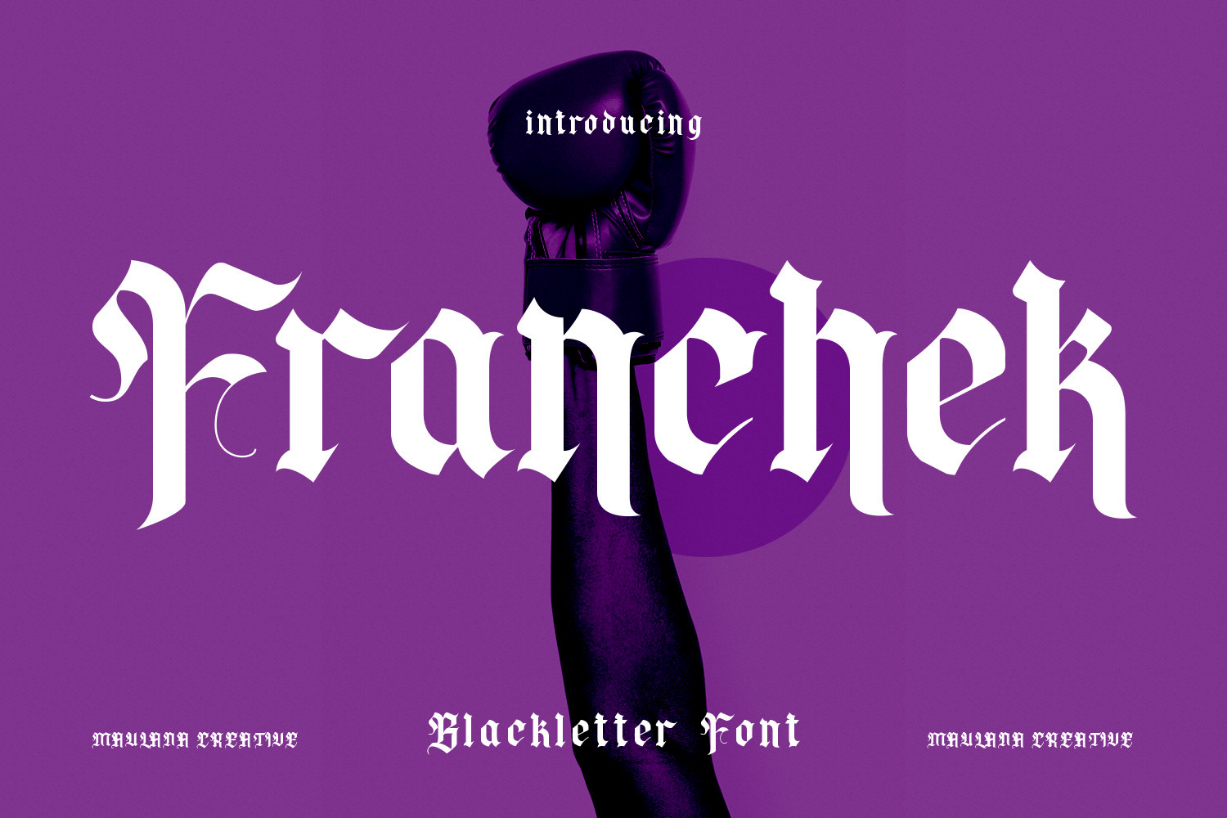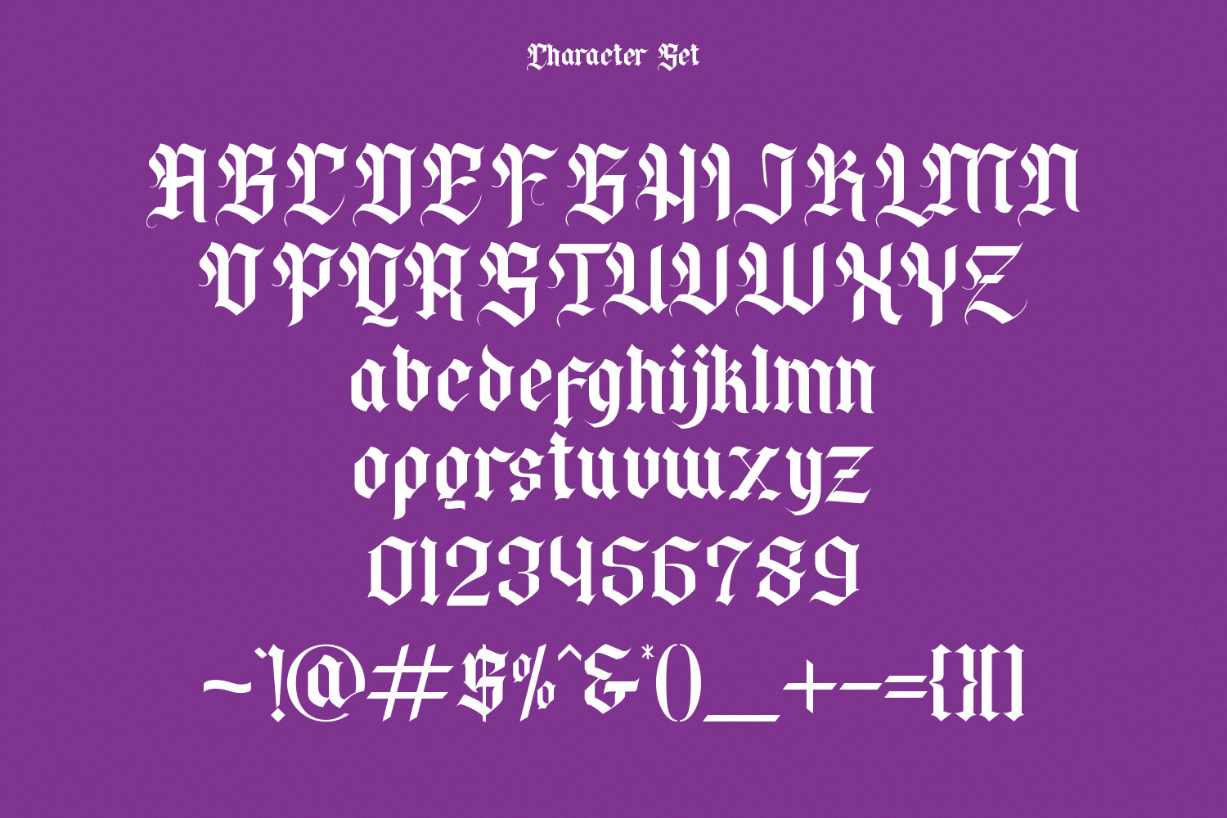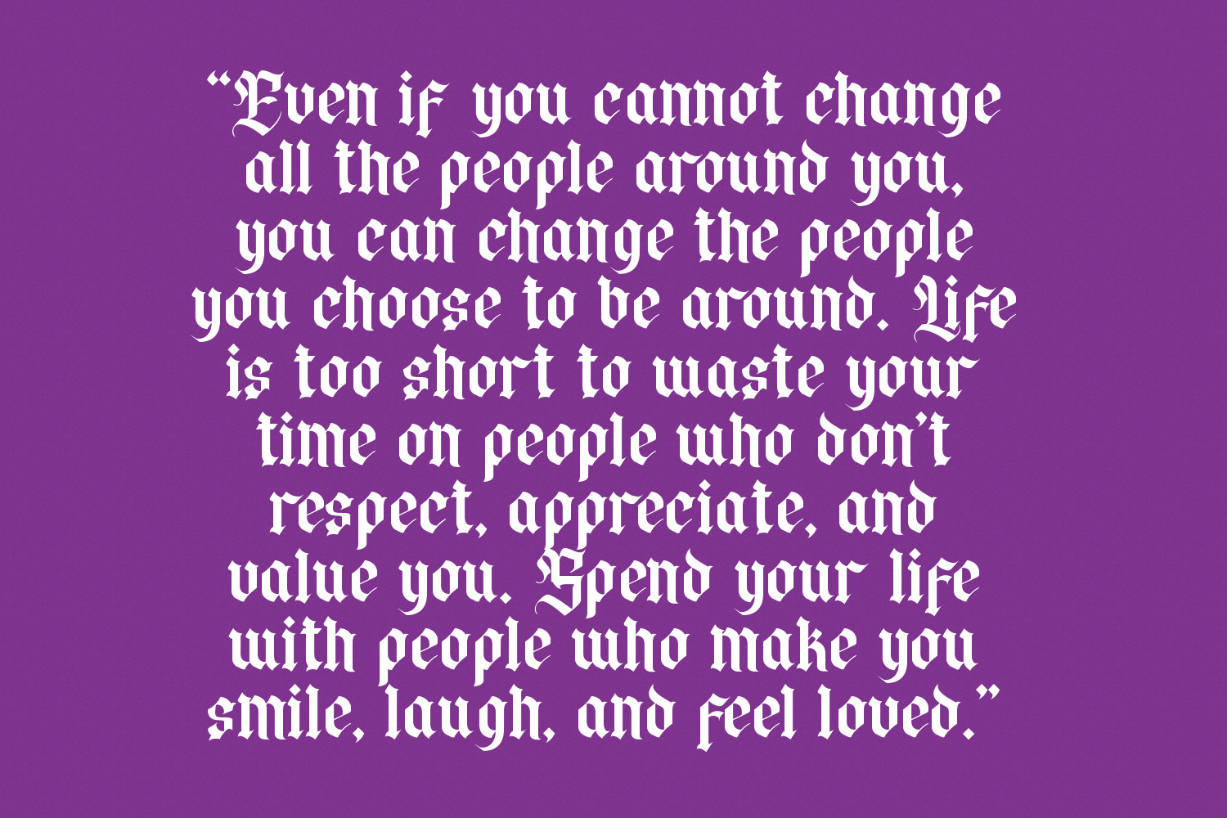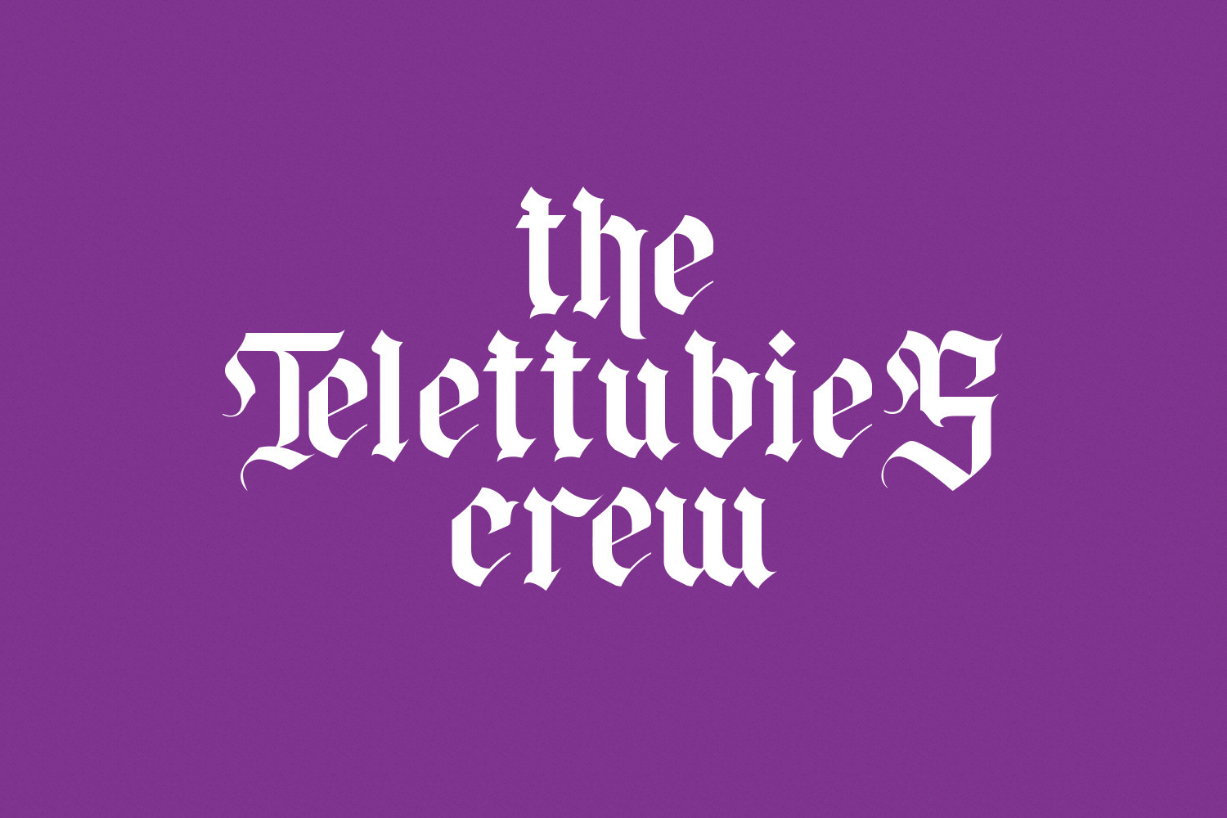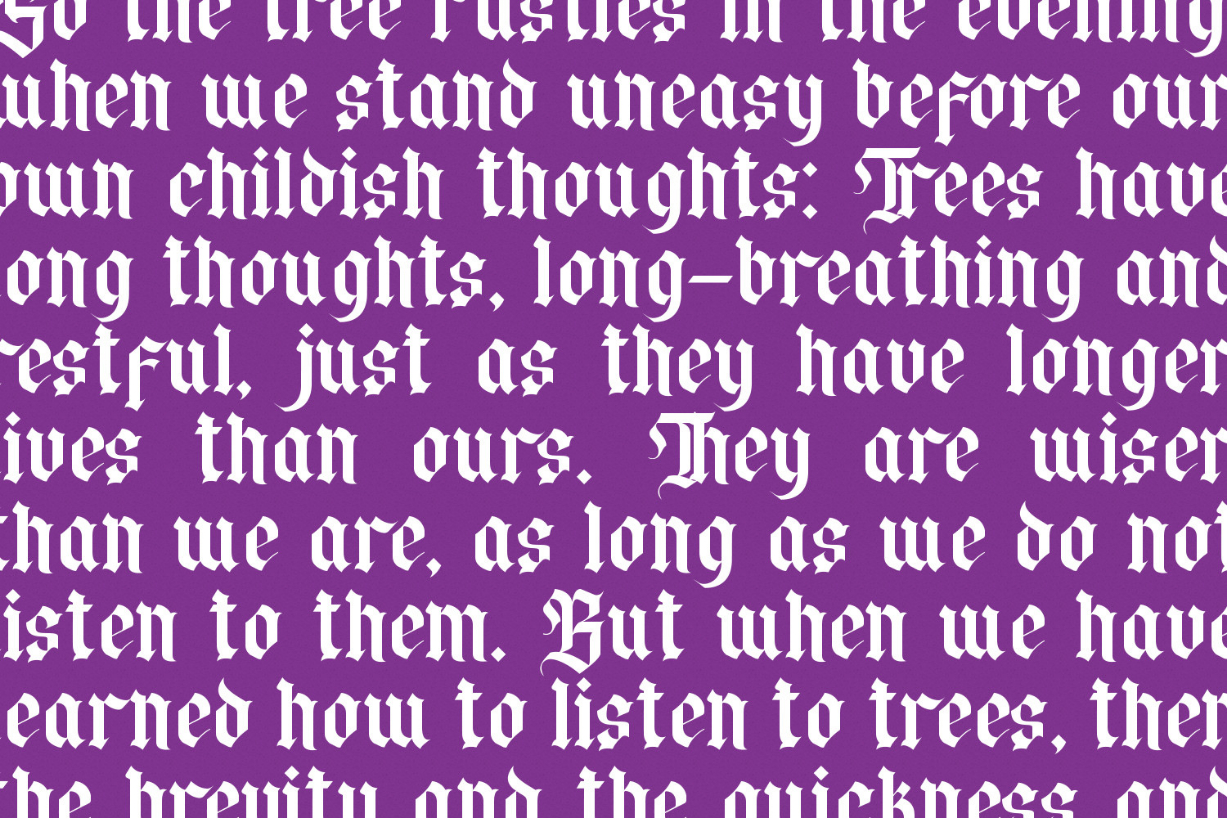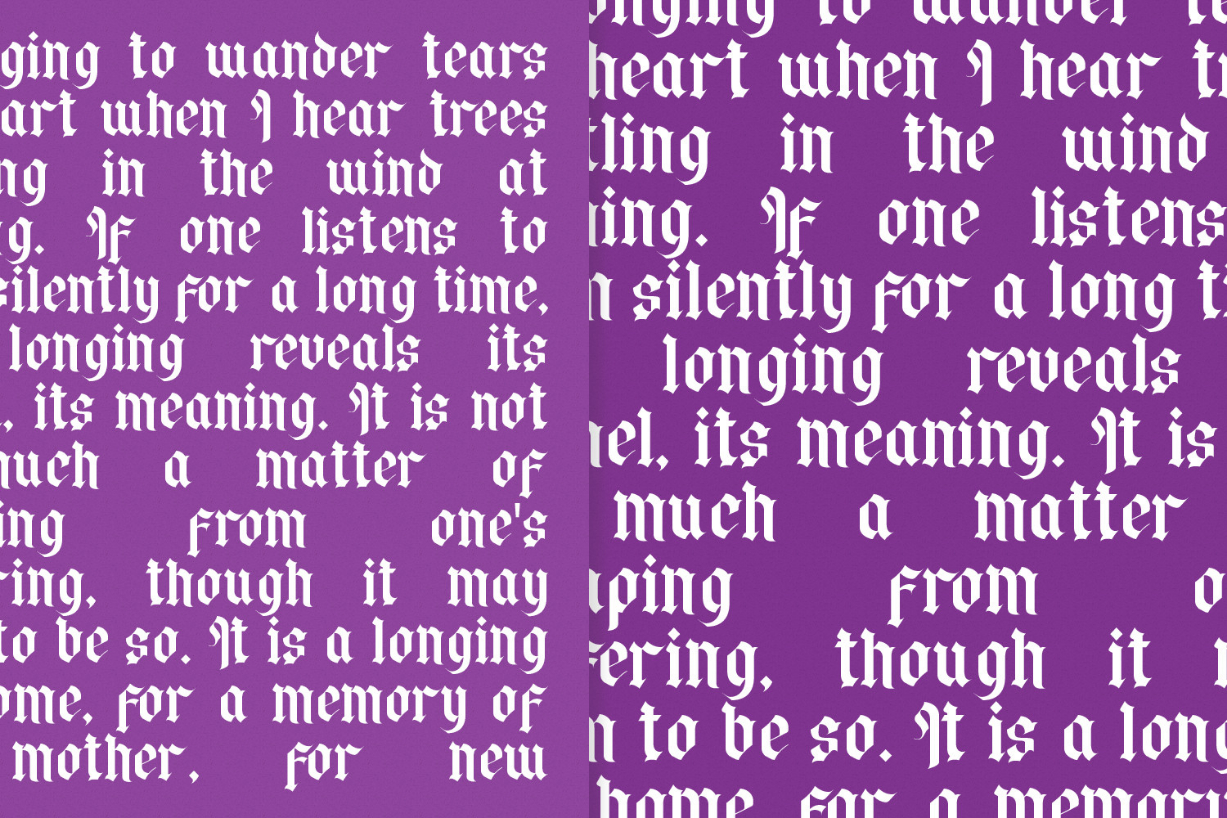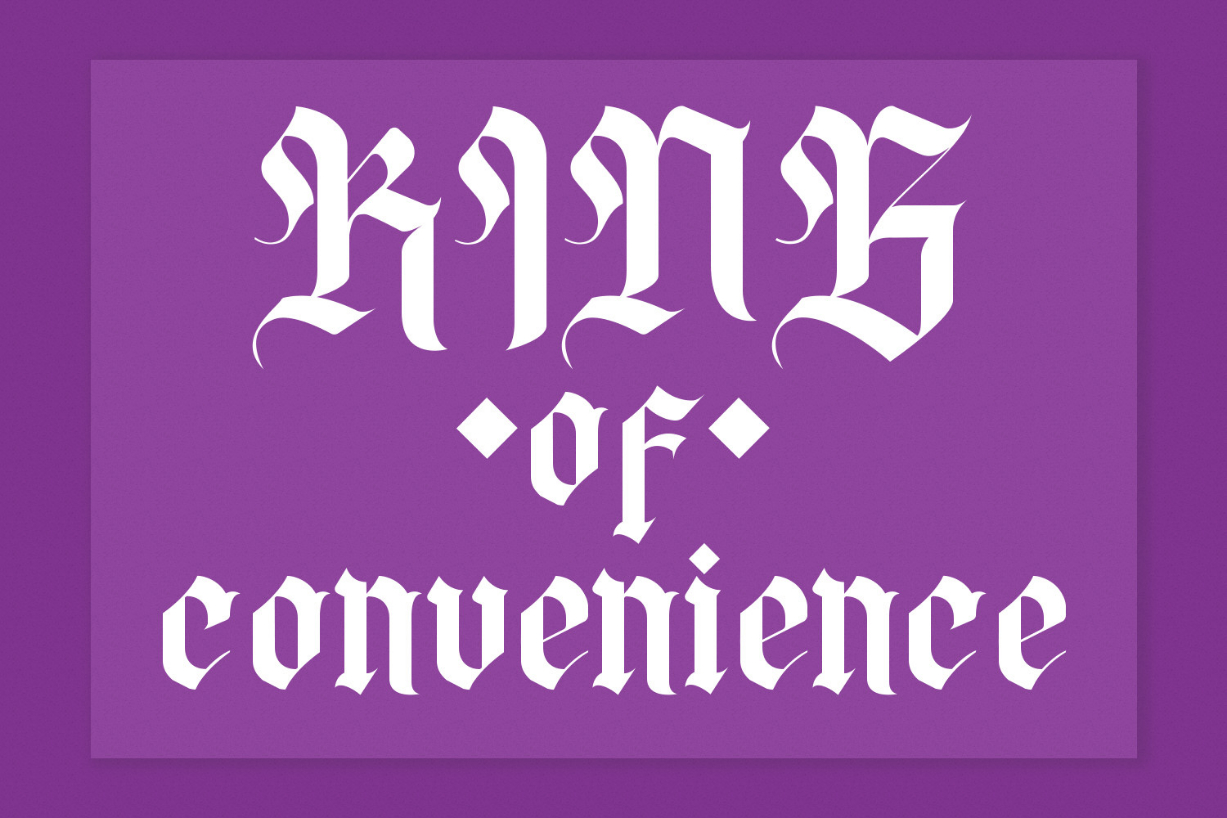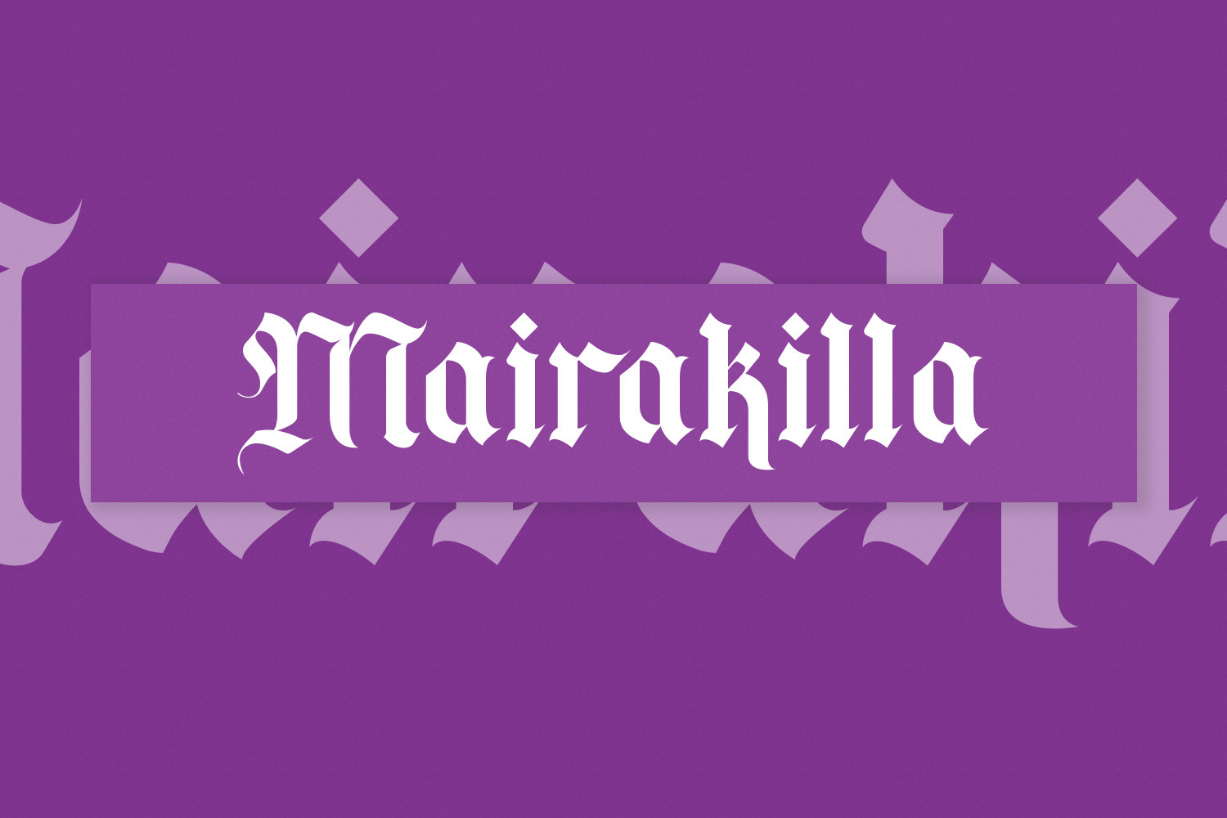
Franchek Font
About Franchek Font
Franchek is a flourish fancy blackletter font with medium-high contrast strokes, a fun character with a bit of ligature, and alternates to give you extra creative work. Atraks is good for logo design, social media, movie titles, book titles, short text, and long text, and good for your secondary text combined with a sans or serif. Make stunning work with the Franchek font.